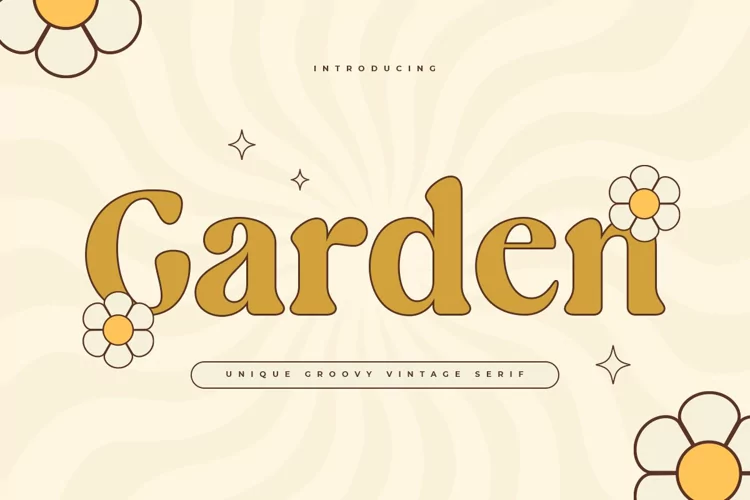
"Garden Party" is a bold bubble retro font.
This font is a trendy retro display font that is perfect for social media or crafty projects. Use it for branding, crafts for decor, invitations, and more!